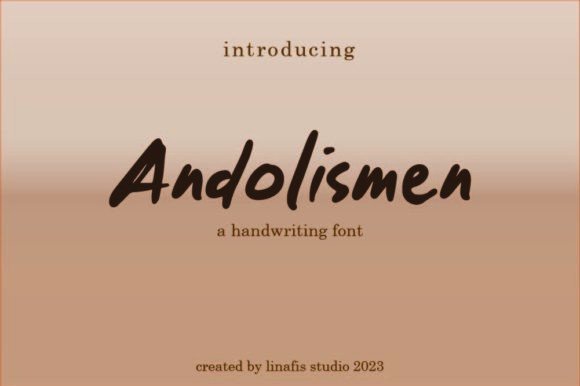
Introduction to Andolismen Font
Andolismen Font is perfect for branding projects, logo, wedding designs, social media posts, advertisements, product packaging, product designs, label, photography, watermark, invitation, stationery and any projects that need handwriting taste.
Key Features of Andolismen Font
Why Choose Andolismen Font?
Andolismen Font offers exceptional quality and versatility, making it a valuable addition to your design toolkit. Whether you’re creating for personal projects or commercial use, Andolismen Font delivers professional results.